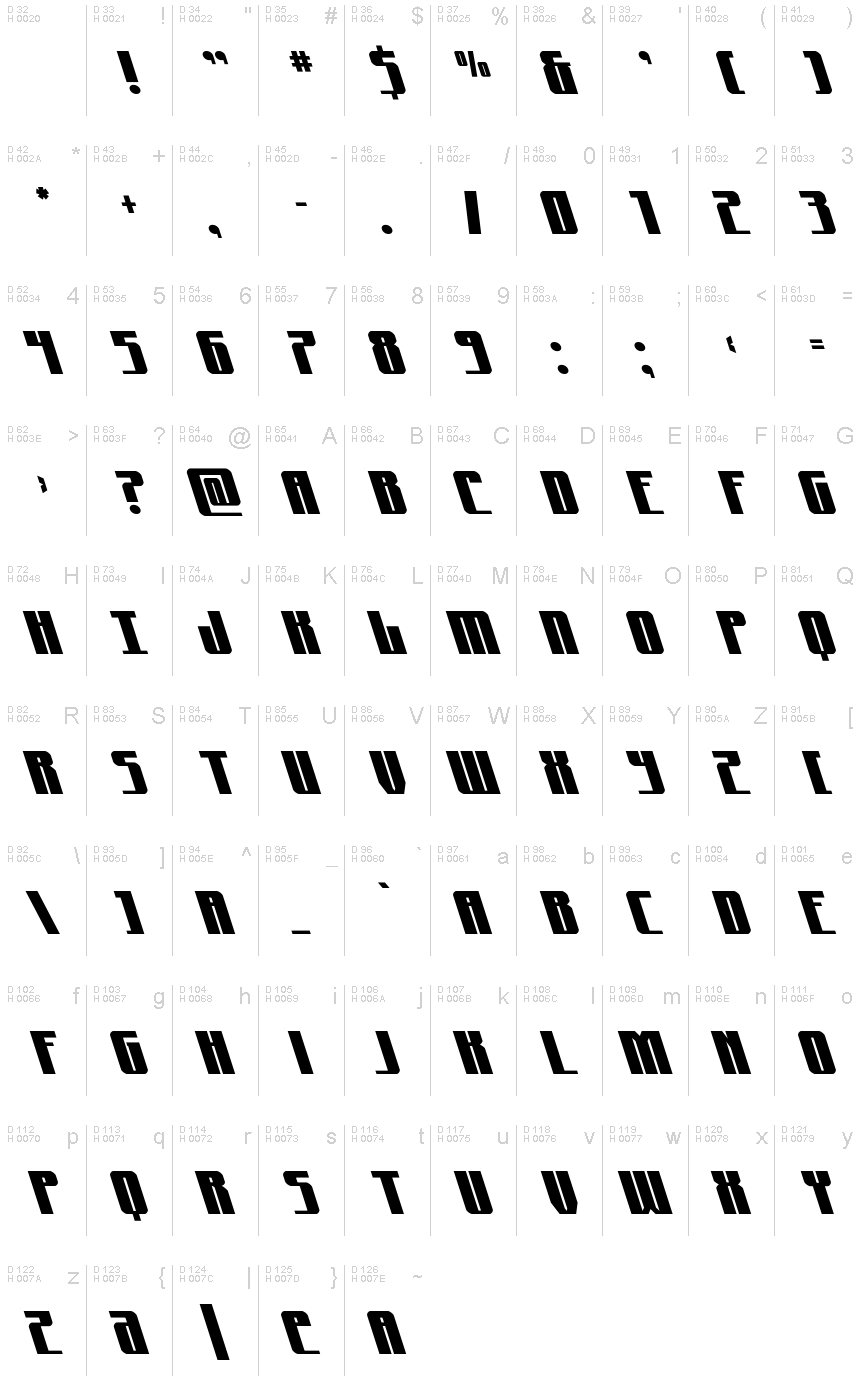
Xeno-Seeker Super-Leftalic
Xeno-Seeker Super-Leftalic font was designed by Iconian Fonts. Bold and notable, this display font is geometric, sans-serif, condensed and quite heavy with its thick outlines within each character shape. Though subtle in some characters over others, this beautiful typeface has contrast that can draws the eye to the text while simultaneously portraying a dynamic high-tech look.
This modern-style typeface is perfect for badges/insignias made for poster design or car logos on technical cars of all sizes. Its strong presence gives ideal emphasis for book covers and visually-stunning choice on game cards or websites alike!